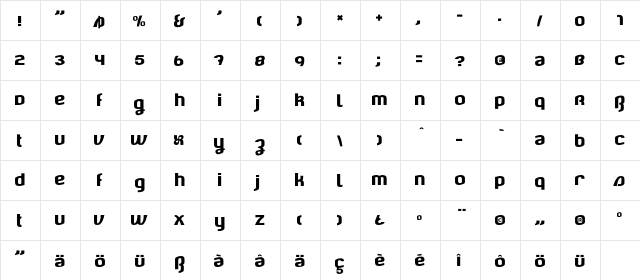
Claster BETAregular Font Preview
Claster BETAregular
Design Context for Claster Typeface
Claster takes a measured approach to typography — its balanced proportions and neutral character make it a reliable workhorse for both digital and print work.